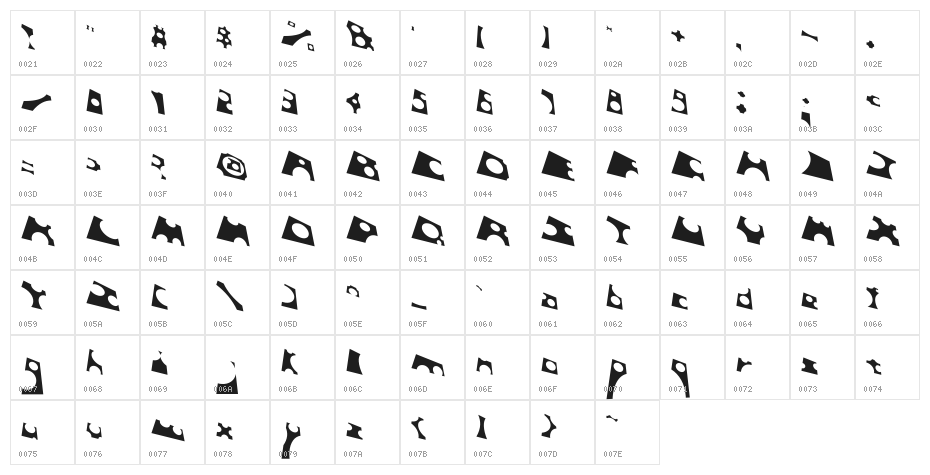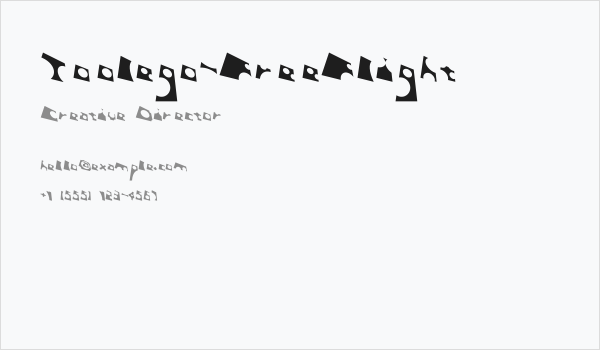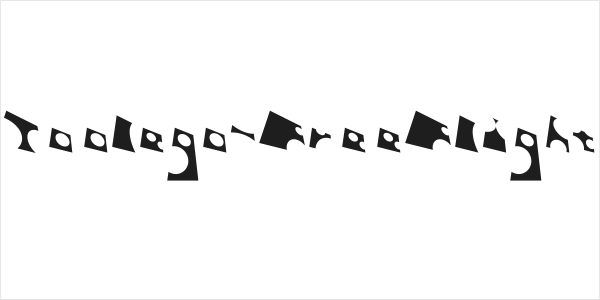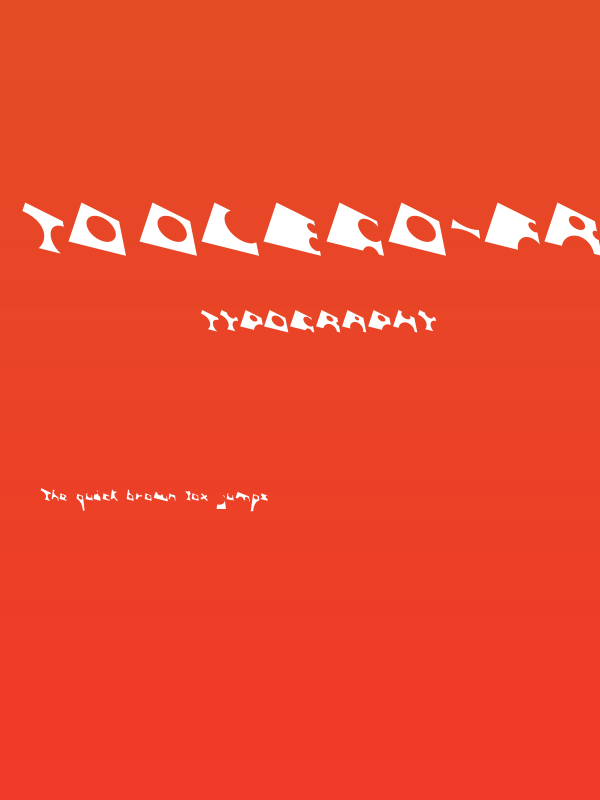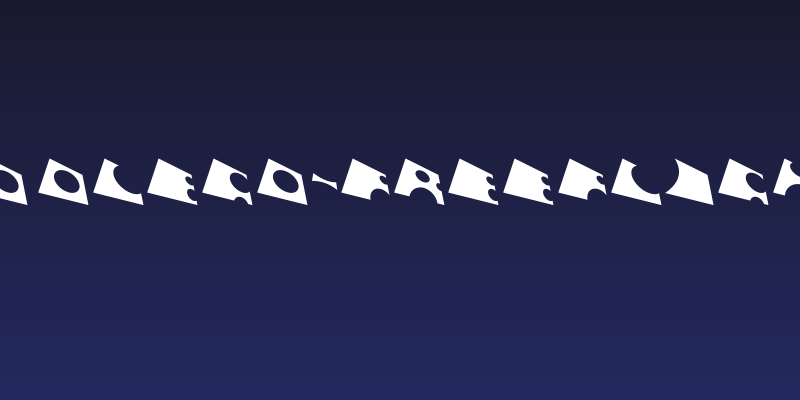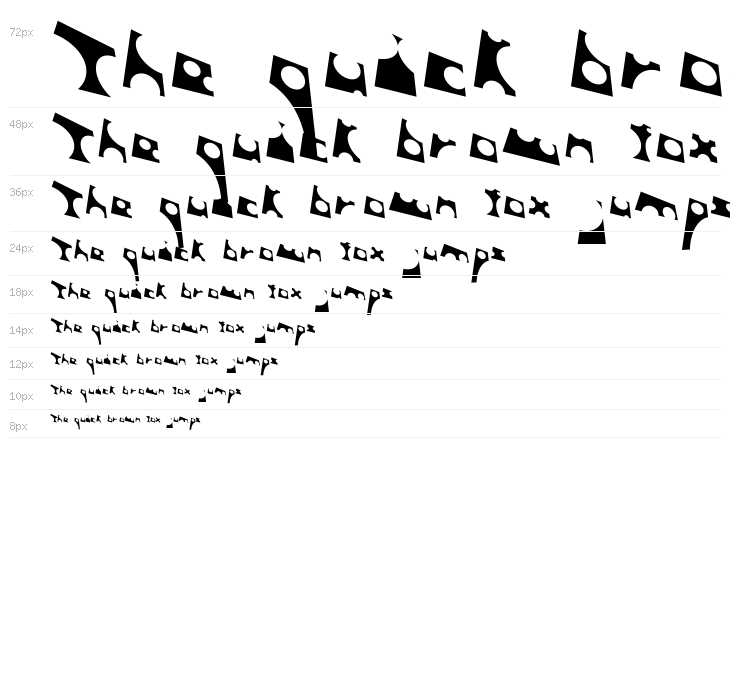
Toolego-FreeFlight Font
Toolego-FreeFlight Description
This font features a highly abstract and geometric design, characterized by bold, angular shapes and sharp edges. Each character is constructed with a series of cutouts and negative spaces, creating a striking visual effect. The font's unique style makes it stand out, with each letterform appearing as a piece of modern art. The overall look is futuristic and avant-garde, making it suitable for creative and unconventional projects. The characters are uniform in weight, with a consistent thickness throughout, and the spacing between them is relatively tight, enhancing the compact and cohesive appearance.
| Use Case | Logos, Posters, Artistic Displays |
| Proposed Projects | Ideal for modern art projects, futuristic branding, and creative design work. |